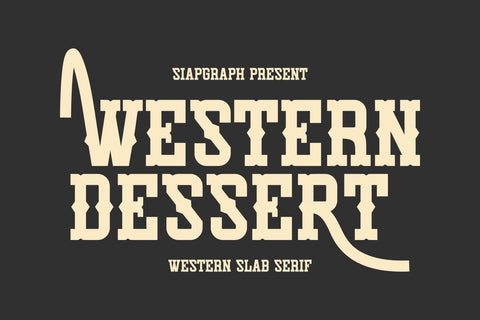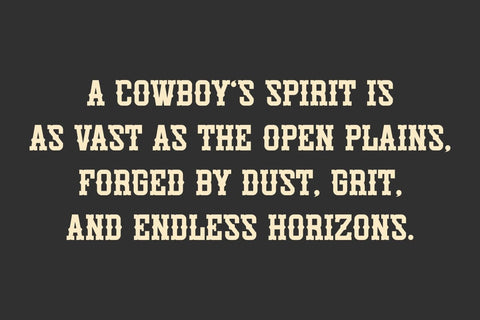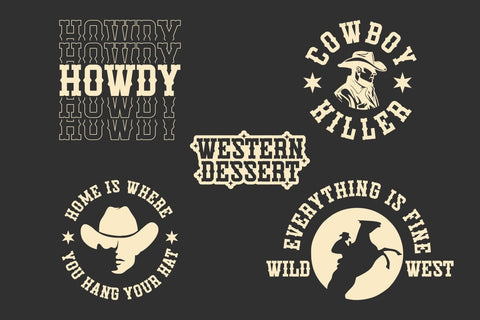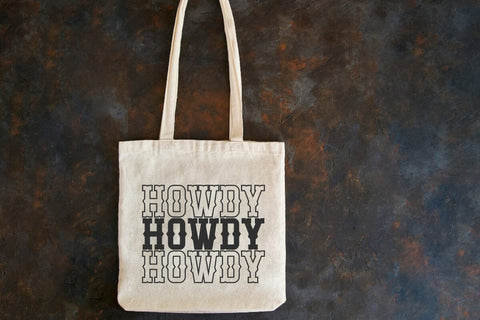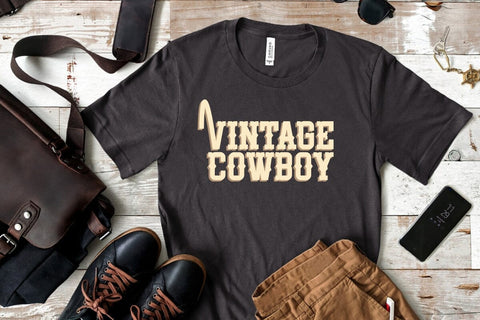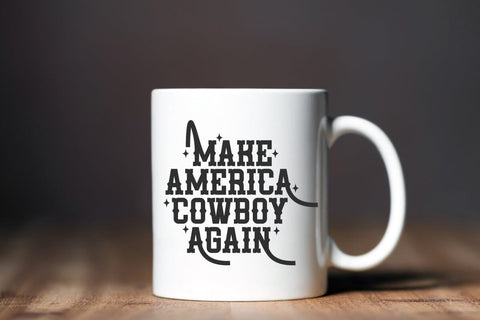
Western Desert - Western Slab Serif Font
Western Dessert is a bold western slab serif font inspired by the rugged cowboy aesthetic with a festive Christmas twist. Perfect for branding logos, quotes, stickers, and mockups for apparel, mugs, and tote bags, Western Dessert adds a unique, rustic charm to holiday and western-themed designs. Its strong character and stylish edge make it ideal for bold statement pieces that stand out.